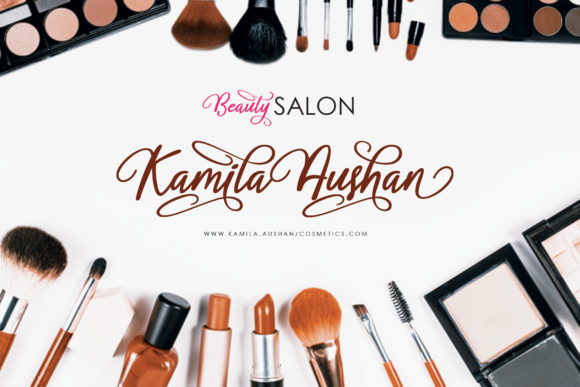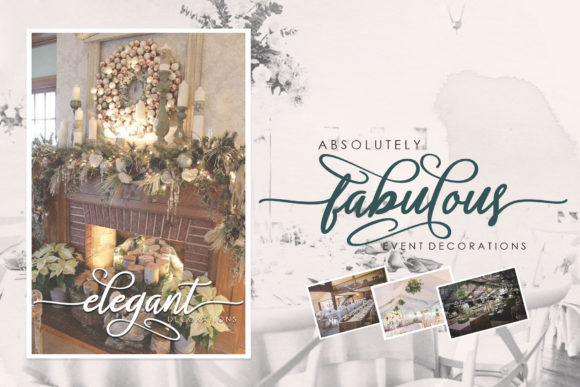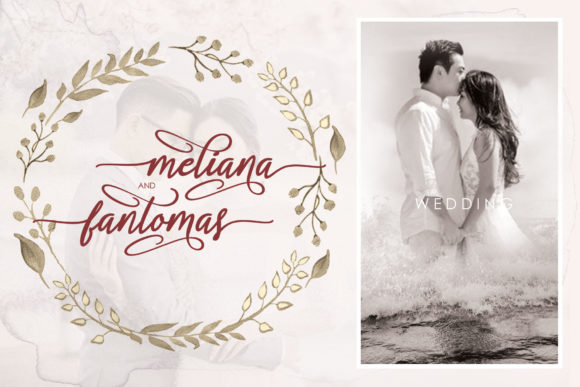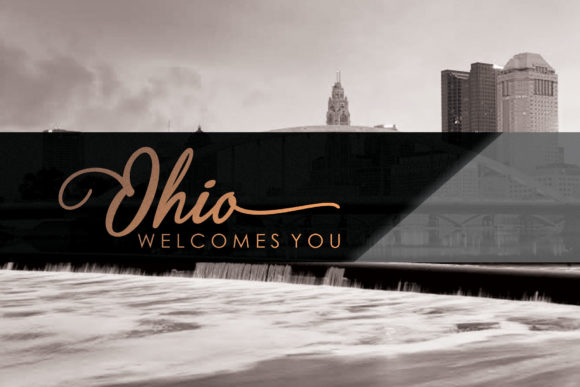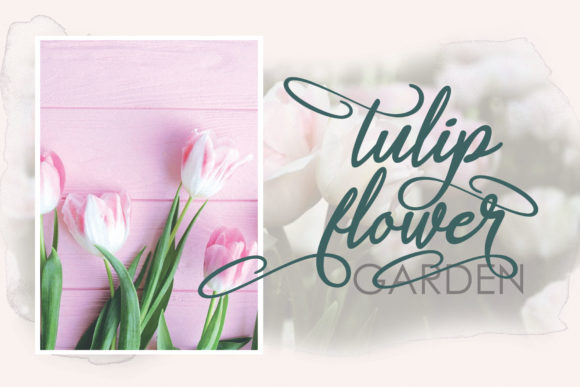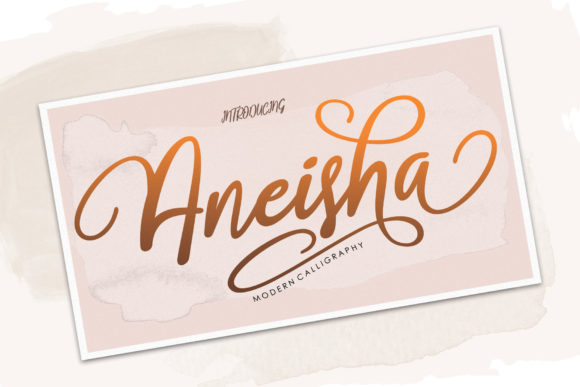
Aneisha Font
About Aneisha Font
Aneisha is an elegant handwritten font. It is perfect for quotes, labels, packaging designs, logos and much more! Get inspired by its classic style!